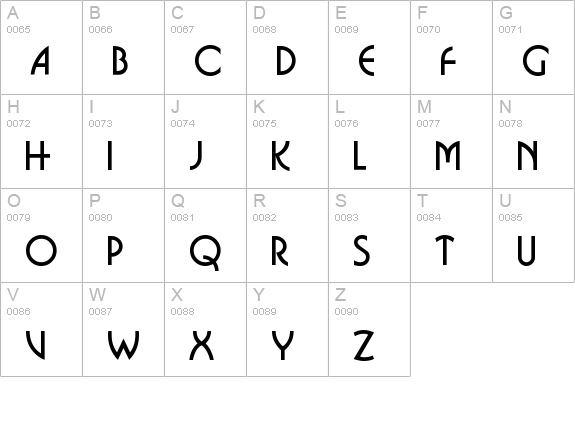
Vongole Font Details
Vongole font is a stunning display font that exudes elegance and sophistication. With its unique and intricate design, Vongole is sure to make any project stand out and make a lasting impression. The flowing lines and delicate curves of this font give it a sense of beauty and grace that is perfect for a wide range of design projects. What sets Vongole font apart is that it is not only visually striking but also completely free to download. That's right, you can get your hands on this exquisite font for no cost at all, thanks to FontsMarket.com. Whether you're working on a branding project, creating invitations, or designing a website, Vongole font is a versatile and eye-catching choice that will elevate your work to the next level. Don't miss out on the opportunity to add Vongole font to your font collection. Download it for free today at FontsMarket.com and let your creativity soar with this gorgeous and unique typeface.